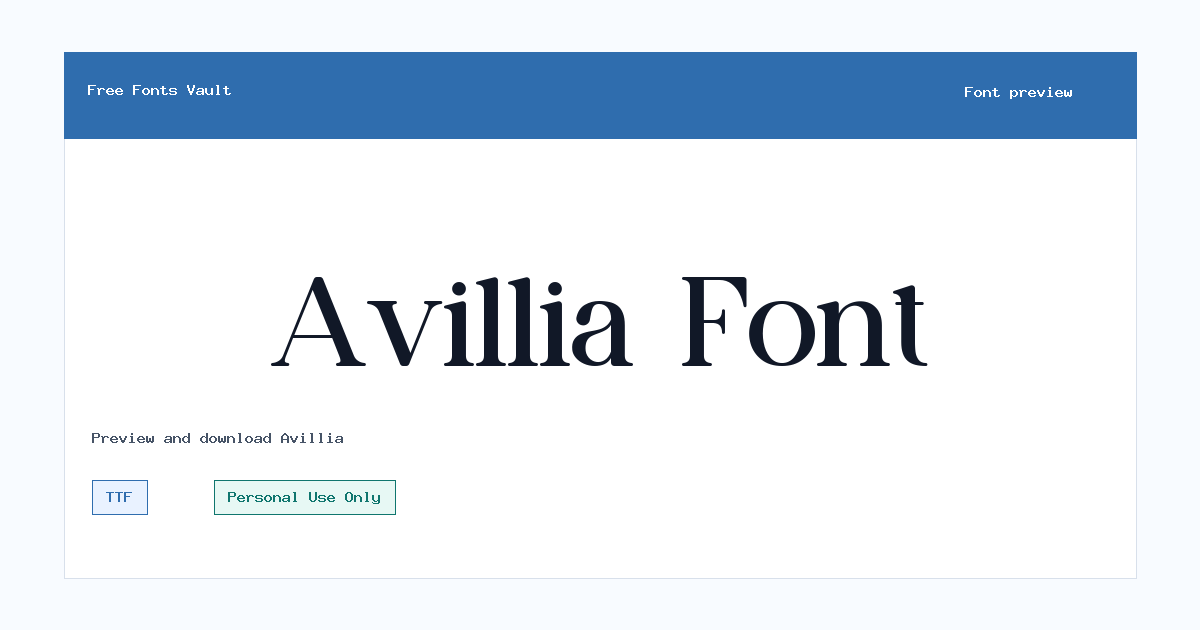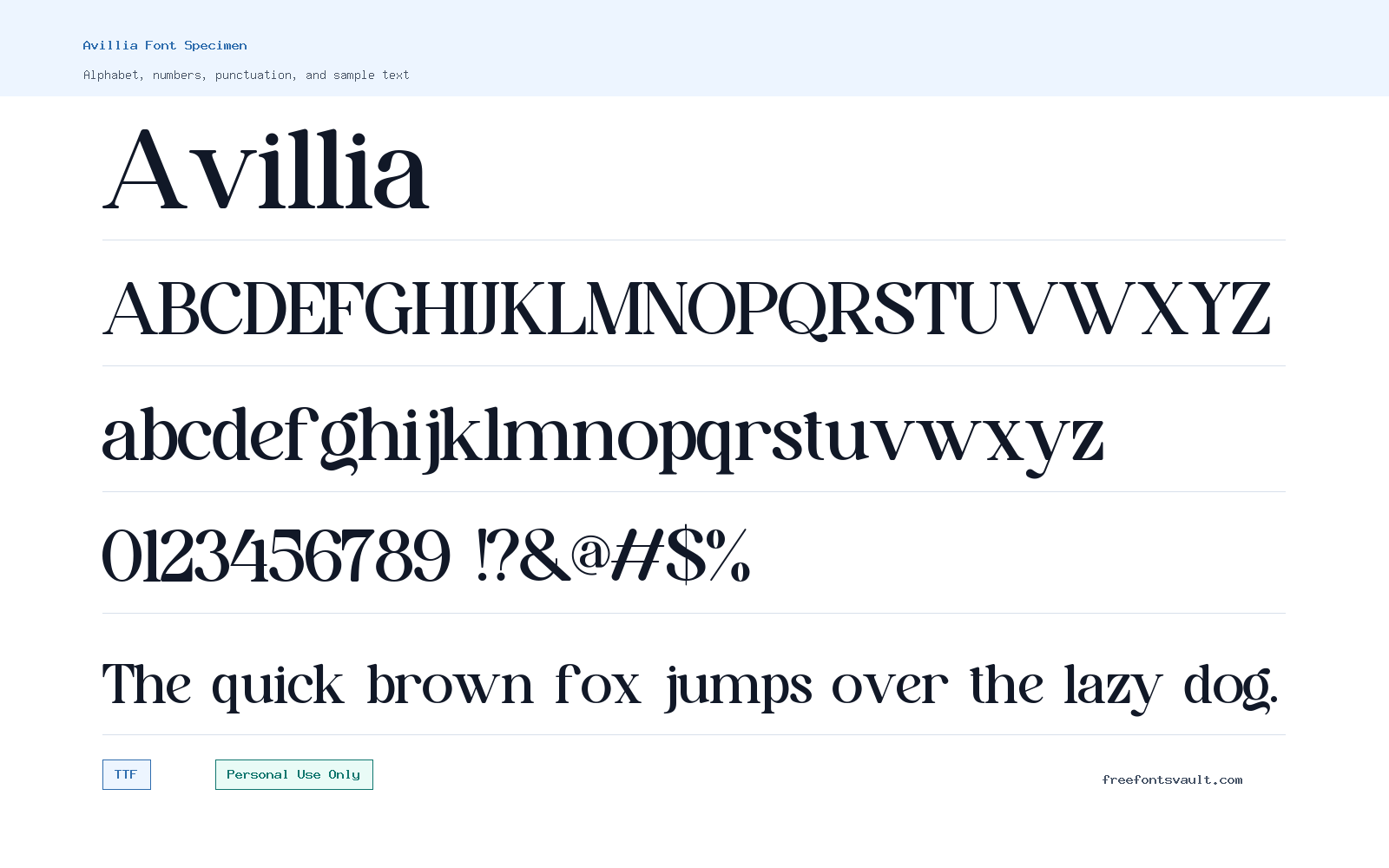
Avillia
Avillia is a serif font family for personal projects, offered in regular weight with both TTF and OTF files. It is a good choice to test when you need a refined text style for titles, short lines, or preview artwork.
Avillia works best when you give it room to show its serif shapes. Use it for display text rather than long reading blocks at small sizes. Try it in the live preview with your own words, especially names, short headings, initials, and phrases with mixed uppercase and lowercase letters. That will show whether the spacing and rhythm fit your design before you download it.
- Regular serif style suited to headings, name treatments, and short display text.
- Personal invitations, greeting cards, and simple printable designs.
- Logotype drafts, name previews, and short brand-style mockups for private testing.
- Social graphics, quote images, and title layouts where a serif tone fits.
What should I use Avillia for?
Use it for short personal designs such as invitations, title graphics, quote images, and name previews where a serif look fits.